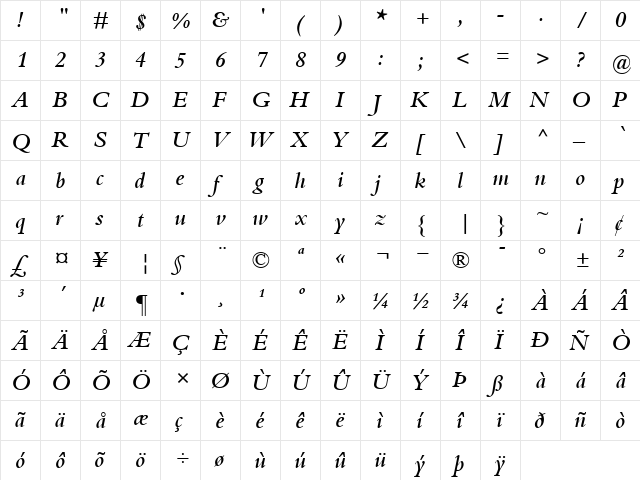
Bembo-SemiBold Semi BoldItalic Font Preview
Bembo-SemiBold Semi BoldItalic
Design Context for Bembo-SemiBold Typeface
Bembo-SemiBold is a composed and adaptable typeface that performs quietly and consistently across a wide range of design contexts. The slanted form adds forward momentum and visual energy. The heavy weight commands attention and anchors typographic hierarchies.
Pro Tip: Use Bembo-SemiBold for emphasis, pull quotes, and subheadings where its slanted energy can add rhythm to the layout.